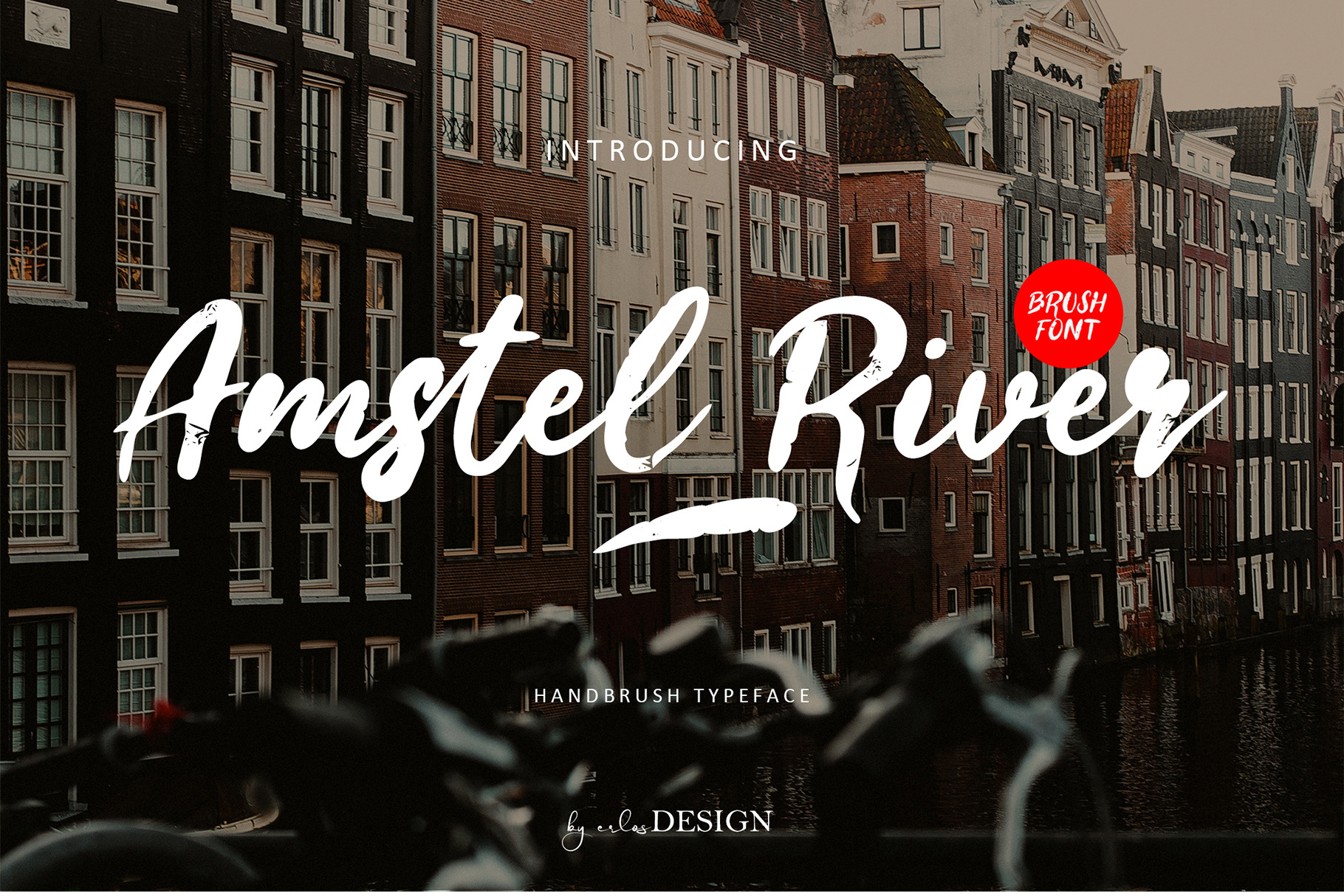
Amstel River - Brush Font
Amstel River - Brush Font by erlosDESIGN
Amstel River is a stylish and delicate script brush font.It has a cool and neat style.
It is suitable for any branding, product packaging, invitation, quote, t-shirt, label, poster, logo that you wish to develop.